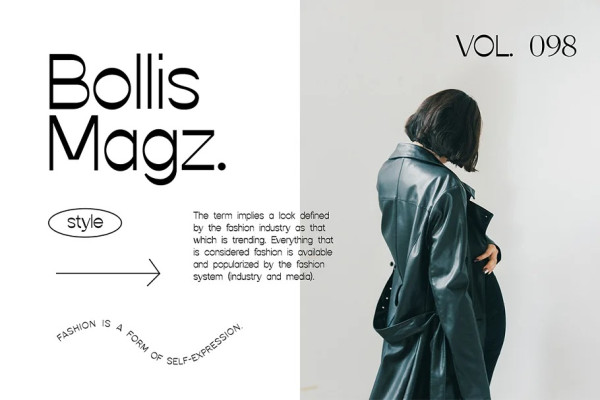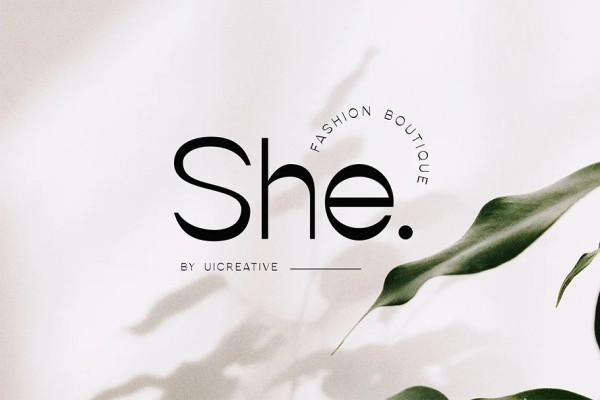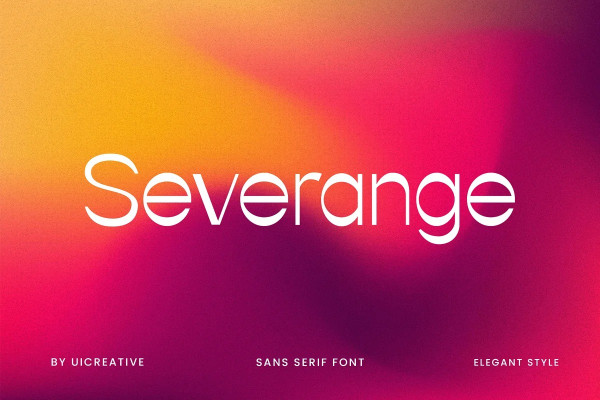
Severange Font
Severange Font – Elegant Sans Serif Font. Modern Sans Serif font that feels beautiful classy, elegant, and modern. This font is ideally suited for a wide variety of projects, such as signature, stationery, logo, wedding, typography quotes, magazine or book covers, website headers, clothing, branding, packaging design, and more. Also, fashion-related branding or editorial design displays both masculine and feminine qualities.